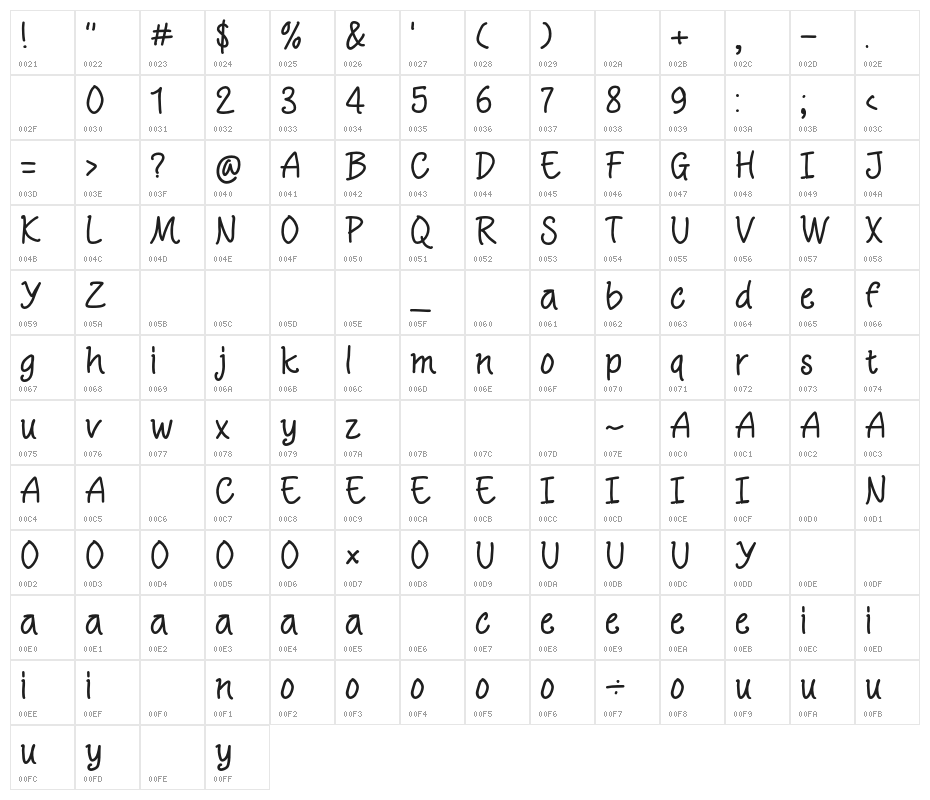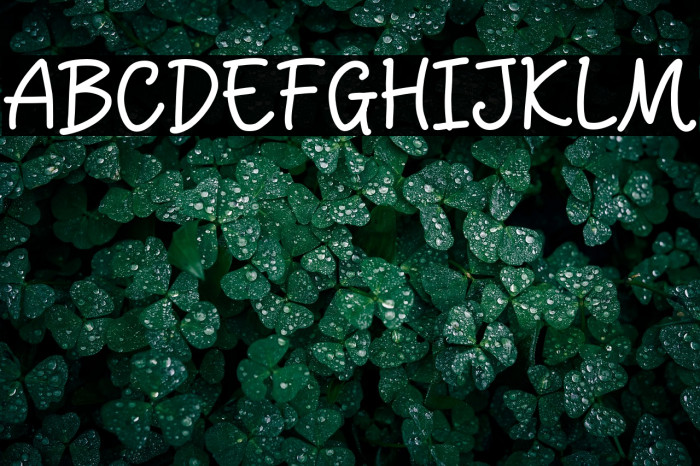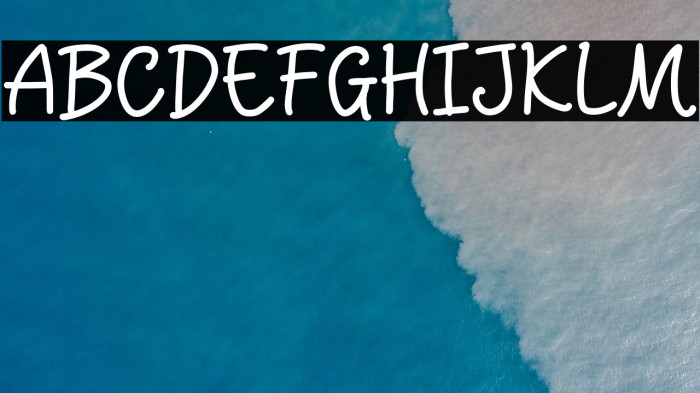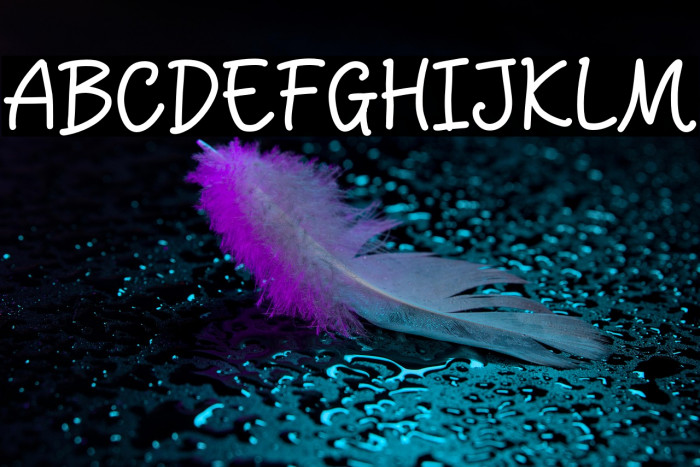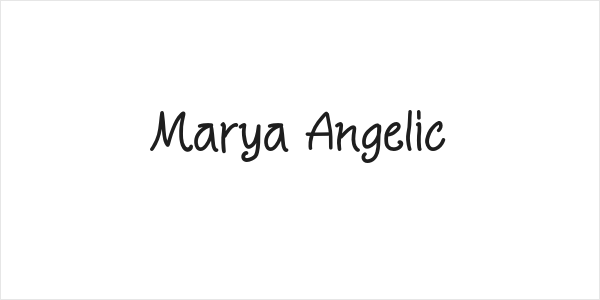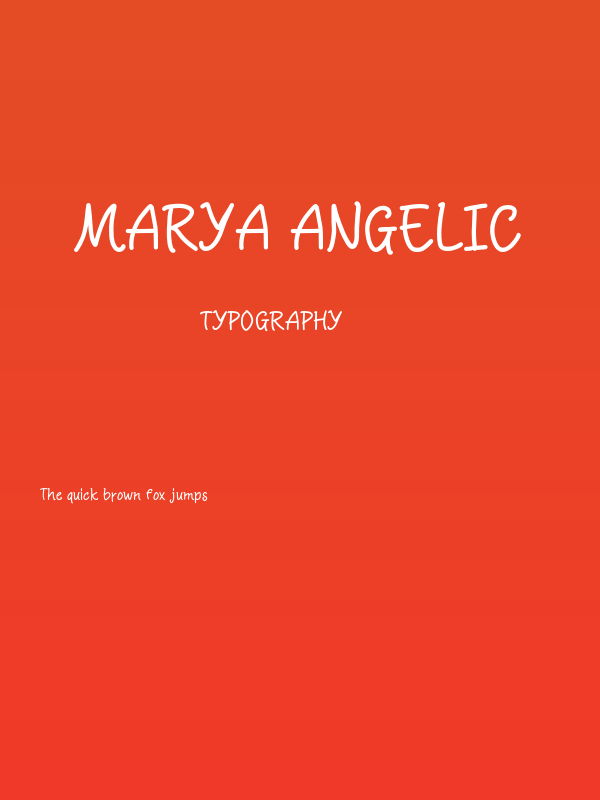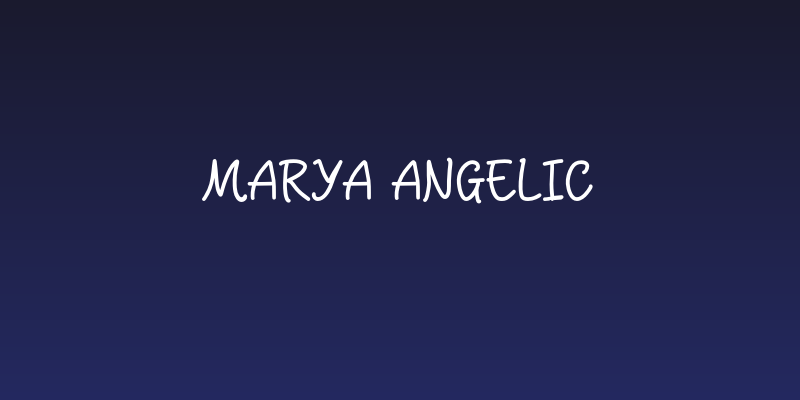
Marya Angelic Font
Marya Angelic Description
A playful and casual handwritten font with a smooth, flowing style and rounded edges.
| Use Case | Headlines, Informal text, Personal notes |
| Proposed Projects | Greeting cards, invitations, personal branding. |